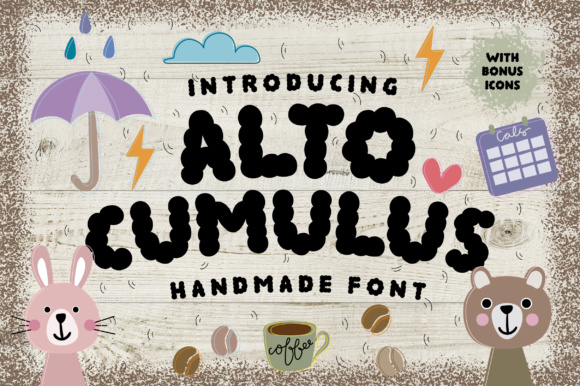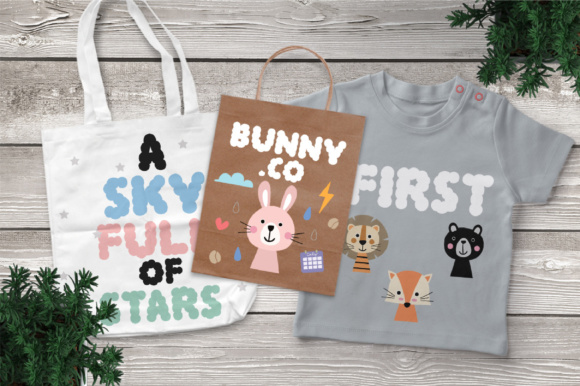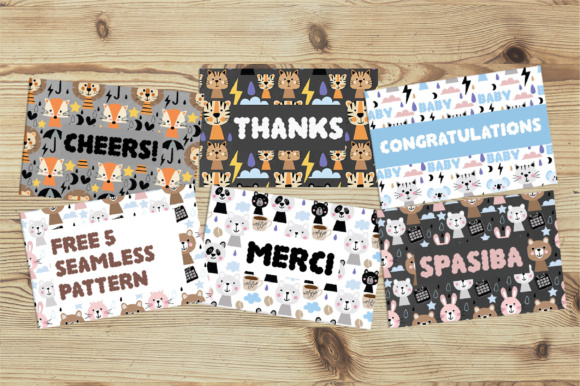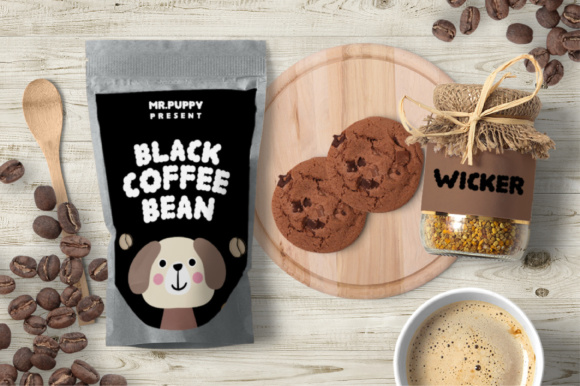
Altocumulus Font
About the Altocumulus Font
Step up your design game with Altocumulus Font, a font that exudes confidence and style. Altocumulus is a cloud inspired font suitable for every creative design. It’s bold and has 2 different styles: regular and lined. You’ll also get acute animals icons and 5 seamless patterns.
Altocumulus’s bold, slightly quirky nature makes it ideal for headlines, short text blocks on posters or packaging, and branding elements needing a strong visual impact. Its playful lined style is particularly effective in children’s book illustrations or projects with a whimsical feel. However, the weight and unique character of Altocumulus make it less suitable for body copy or UI elements requiring high readability.
Pairing Altocumulus with a clean sans-serif like Open Sans (for readability) or a more geometric font like Futura (for contrast) would create a balanced and professional aesthetic. For a softer contrast, a simple serif font such as Garamond or Lora could complement its boldness, providing a touch of elegance. The included icons and patterns enhance its versatility in branding applications.
The overall personality of Altocumulus is bold and playful, yet retains a degree of sophistication. Brands targeting a younger demographic or seeking a fun, memorable aesthetic will find it a strong choice.
Altocumulus Font Usage Examples
Altocumulus Font Example